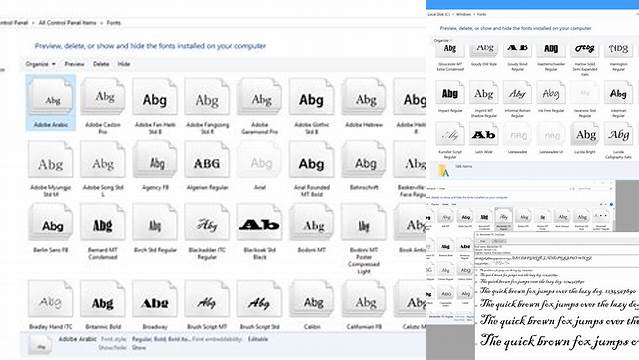
Windows 10 Fonts: A Comprehensive List & Guide
Understanding Windows 10 Default Fonts
Let's be real, fonts matter. They're not just about making words look pretty; they play a crucial role in readability, accessibility, and overall user experience. Windows 10 comes pre-loaded with a variety of fonts, each with its unique character and purpose. Knowing what these default fonts are and when to use them can significantly improve your documents, presentations, and even your daily browsing. So, what are the key default fonts you should know about?
- Arial: A classic sans-serif font known for its clean and straightforward design. It's highly readable and suitable for a wide range of applications, from body text to headings. Arial is like that reliable friend you can always count on.
- Times New Roman: A serif font that screams tradition and formality. It's widely used in academic papers, books, and formal documents. If you want to give your text a touch of sophistication, Times New Roman is your go-to font.
- Calibri: The default font for Microsoft Office applications since 2007, Calibri is a sans-serif font that offers a modern and friendly appearance. Its rounded edges and balanced proportions make it a great choice for on-screen reading.
- Segoe UI: Designed specifically for Windows, Segoe UI is a sans-serif font that prioritizes clarity and legibility. It's used extensively throughout the Windows interface, ensuring a consistent and user-friendly experience.
- Courier New: A monospaced font that resembles typewriter text. Each character occupies the same amount of horizontal space, making it ideal for coding, technical documentation, and situations where precise alignment is crucial.
These are just a few of the many default fonts available in Windows 10. Each font has its own strengths and weaknesses, so experiment and find the ones that best suit your needs. Understanding these default fonts is the first step to mastering typography in Windows 10. Trust me, choosing the right font can make all the difference!